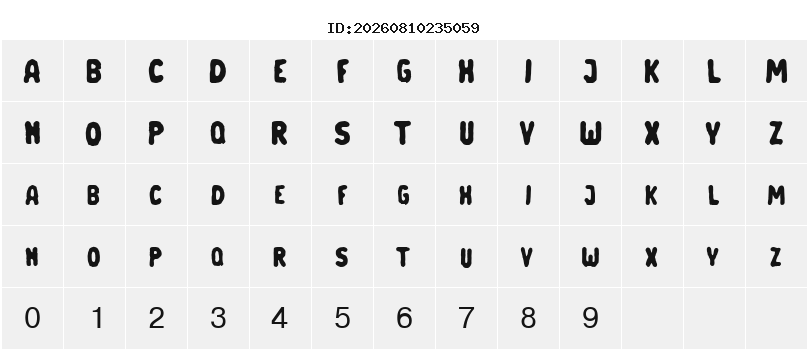
Russianbread2 Becker Preview
• Font Name: Russianbread2 Becker
• Full Font Name: Russianbread2 Becker
About Russianbread2 Becker.ttf
Russianbread2 Becker.ttf is a modern, elegant sans-serif font designed for ultimate readability and visual harmony. Perfect for branding, headlines, web design, and print materials.